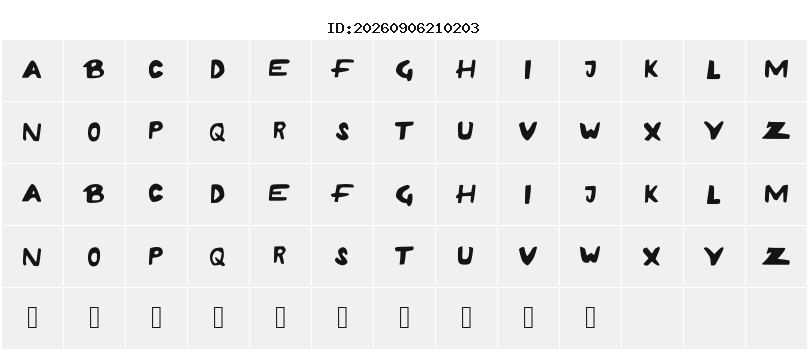
Usama Preview
• Font Name: Usama
• Full Font Name: Usama Regular
• Character Count: 53
About Usama.ttf
Usama.ttf is a modern, elegant sans-serif font designed for ultimate readability and visual harmony. Perfect for branding, headlines, web design, and print materials.